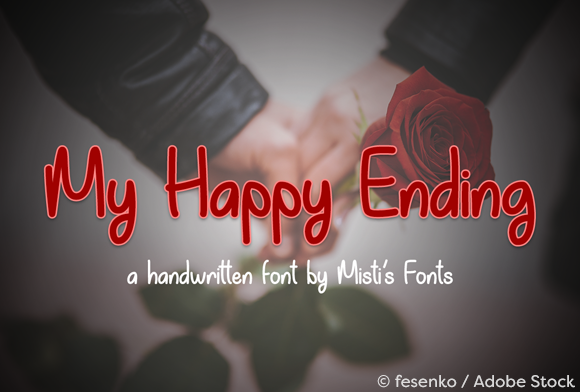
HomeScript FontsMy Happy Ending Font Script Fonts My Happy Ending Font FacebookXPinterestWhatsApp About My Happy Ending Font My Happy Ending is a fun, handwritten typeface that is sure to add charm and feminine flair to your projects! DOWNLOAD NOW People also explored Hethopia Steagal Manhattan Font Valentine Mine Font Gilman Sans Mackyloo Font doyourthing Chocolate Font Beautiful Day 267 0 TagsMy Happy Ending Font Previous articleStar Light FontNext articleJelly Fresh Font LEAVE A REPLY Cancel reply Comment: Please enter your comment! Name:* Please enter your name here Email:* You have entered an incorrect email address! Please enter your email address here Website: Save my name, email, and website in this browser for the next time I comment. Personal Use Free Satori Personal Use Free Read more about this font Planning Personal Use Free Read more about this font Crellia Script Personal Use Free Read more about this font Vexler Slip Personal Use Free Read more about this font BLOG Exploring Font Trends Shaping Communication in the Digital Era Fonts, like all design elements, are subject to trends. They play a crucial role in communicating a brand's personality,... Using Fonts in Digital Marketing: Tips to Strengthen Your Brand Identity Fonts That Capture the Spirit of New York City Free vs Paid Fonts: Why Investing in Premium Fonts Is Worth It